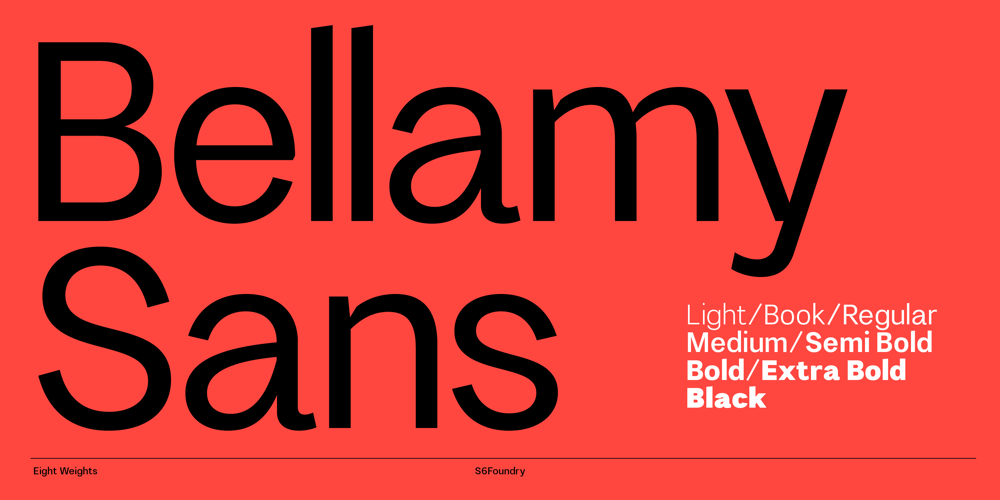
Bellamy Sans Font Family was designed by Paul Henry Robb and published by S6 Foundry. Bellamy Sans contains 8 styles and family package options. Bellamy Sans epitomizes enduring modernity in typography, radiating both style and individuality. Bellamy is classically proportioned with contemporary, distinctive shapes and curves and ductus, a wide overall stance, and large open counters. It provides impeccable visual uniformity for branding and communications, incorporating OpenType features, supports all Latin Extended languages.